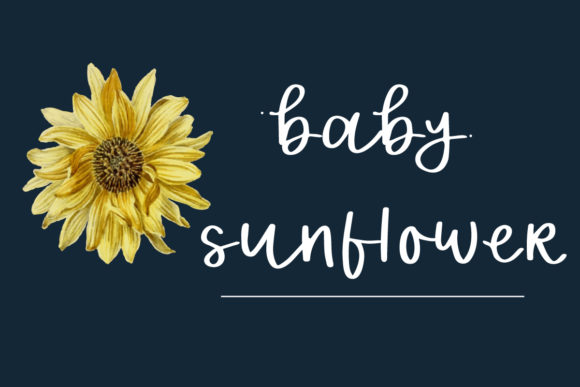
Embark on a typographic journey with Baby Sunflower Font, a captivating script font that exudes elegance and charm. Its graceful lines and enchanting curves will add a touch of sophistication to your creative projects, making them stand out from the mundane.
Crafted by the talented artisans at The Gelato, Baby Sunflower Font is a masterpiece that embodies modern aesthetics. Its delicate strokes and flowing characters evoke a sense of harmony and balance, making it the perfect choice for designers seeking to create visually stunning designs.
Step into a world of creative possibilities with Baby Sunflower Font. Its versatility knows no bounds, as it lends its beauty to a wide range of design projects. From eye-catching logos and branding materials to captivating social media posts and website designs, Baby Sunflower Font transforms your words into works of art.
Immerse yourself in the beauty of Baby Sunflower Font's meticulously crafted characters. Each letter is a testament to the font's intricate design, adorned with graceful curves and delicate flourishes. Experience the joy of creating designs that captivate and inspire, as Baby Sunflower Font elevates your projects to new heights of elegance.
Don't miss out on the opportunity to transform your creative vision into a reality with Baby Sunflower Font. Its timeless style and modern appeal will leave a lasting impression on your audience, ensuring your designs stand out in a sea of mediocrity. Embrace the beauty of Baby Sunflower Font today and unlock a world of typographic possibilities.